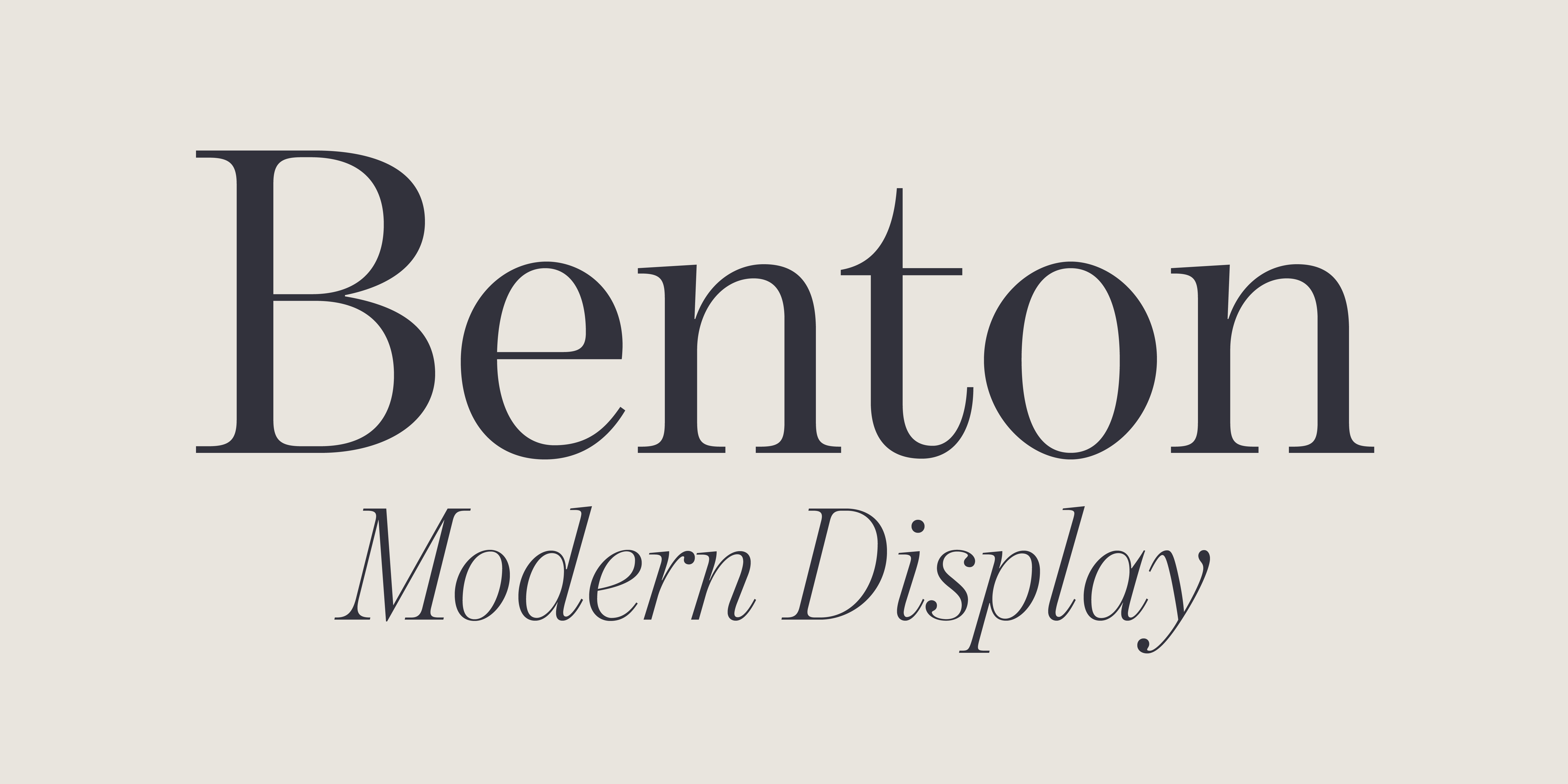
Benton Modern Font is ideal for high-end editorial design, luxury magazine layouts, premium book publishing, sophisticated corporate branding, upscale marketing materials, elegant product packaging, refined web typography, professional presentations, cultural institution materials, and contemporary art publications that demand both readability and aesthetic distinction.
What makes Benton Modern Font truly exciting is its masterful evolution of classic American typography traditions updated for contemporary design needs. This remarkable typeface combines the timeless appeal of traditional serif letterforms with modern refinements and technical precision, featuring carefully balanced proportions and subtle contemporary touches that deliver both historical gravitas and fresh visual energy. The font's sophisticated character and proven versatility make it perfect for projects that require both editorial authority and modern aesthetic sensibility.
The Benton Modern Font family includes comprehensive weights and styles: Light, Regular, Medium, Bold, and Black variations, each available in Roman and Italic versions. Each family member maintains the distinctive modern serif character while offering complete flexibility for complex editorial and branding applications. The extensive character set supports multiple languages and advanced typographic features, making it suitable for international publishing projects.
When you choose Benton Modern Font Free Download, you're selecting a typography masterpiece that bridges classical heritage with contemporary innovation. This versatile typeface excels in both long-form reading applications and display uses, maintaining exceptional comfort and clarity while delivering sophisticated visual impact. Whether you're designing magazines, books, brand identities, or digital content, this font provides the refined character and editorial excellence that resonates with audiences who appreciate both tradition and progressive design thinking.